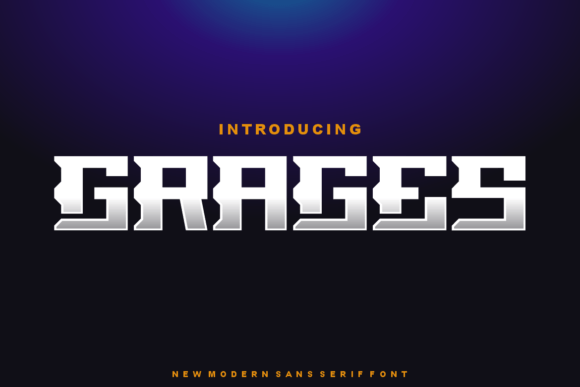
Introduction to Grages Font
Grages is a new modern display font that’s perfect for catching attention.
Its sleek and stylish design makes it great for headlines, posters, and any place where you want your text to stand out Simple yet bold, Grages gives your words a fresh and contemporary look.